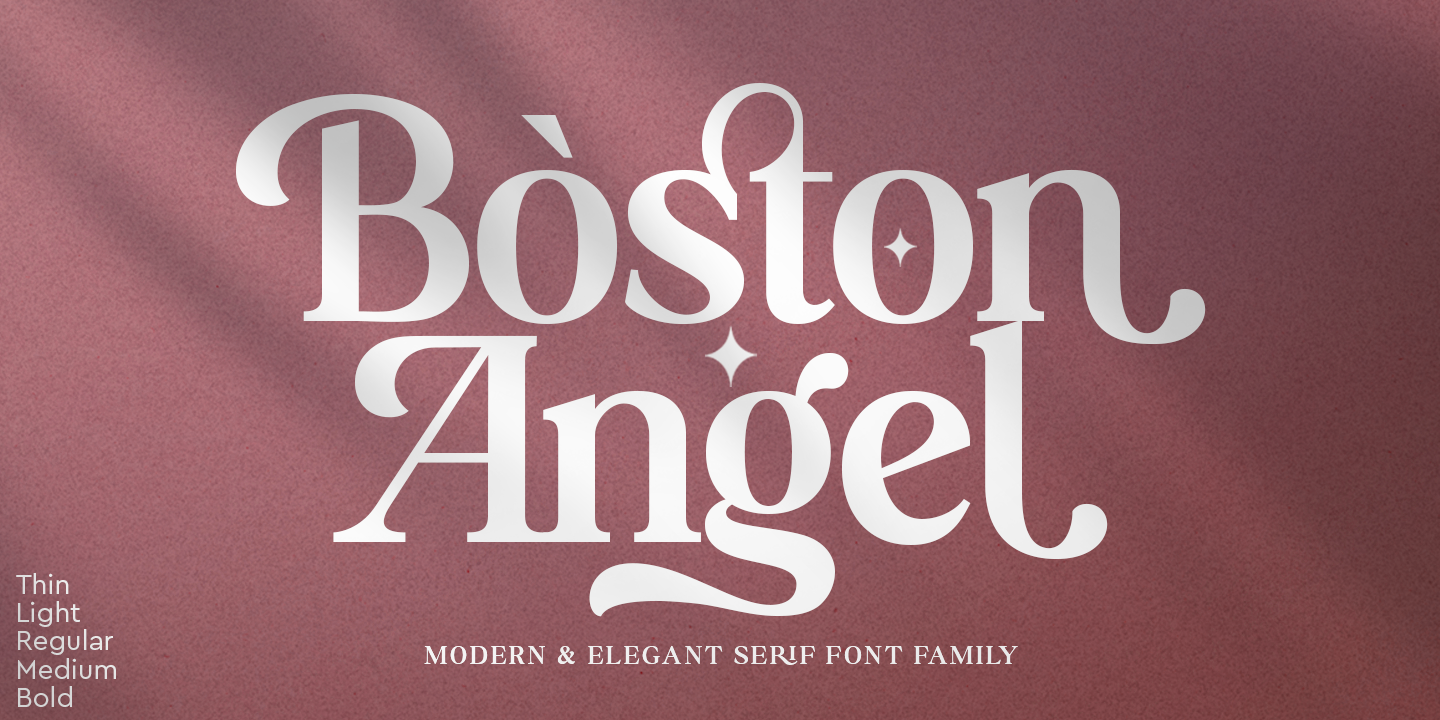
Ideal for branding, editorial design, invitations, luxury packaging, and headlines, Boston Angel Font Free Download adds a refined and timeless touch to your creative projects.
What makes this font exciting is its clean lines, subtle curves, and balanced proportions that enhance readability while maintaining a classy aesthetic. It’s perfect for designers who want to evoke elegance and professionalism.
The Boston Angel font family includes Regular, Italic, Bold, and Bold Italic styles, offering versatility for a wide range of design needs.